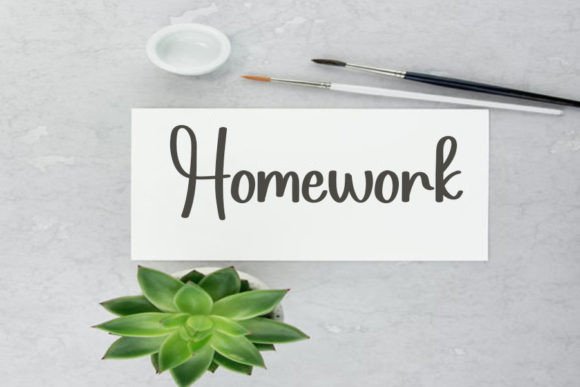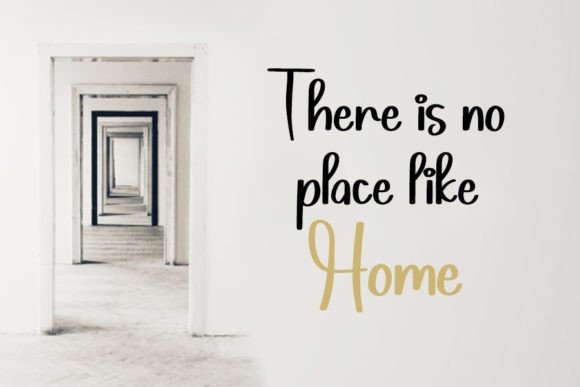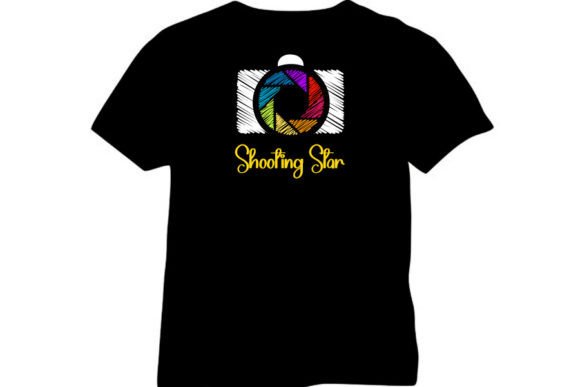
Photography Font
About Photography Font
“Photography” is a cute and friendly handwritten font that adds a playful and slightly quirky charm to your design projects. This font is a perfect fit for a wide range of applications, including logos, branding, posters, and crafty DIY projects.
The defining characteristics of “Photography” are its cuteness and friendliness. Its handwritten style imparts an approachable and authentic feel to your designs, making it an ideal choice for projects that require a personal touch with a touch of whimsy.
Imagine using “Photography” to create memorable and approachable logos and branding materials that resonate with your target audience. Visualize incorporating this font into posters that convey a fun and lighthearted atmosphere. “Photography” can also be a valuable asset for crafting eye-catching DIY projects, whether it’s for greeting cards, scrapbooking, or other creative endeavors.
In conclusion, “Photography” is more than just a font; it’s a design resource that infuses cuteness and friendliness into your creative work. Its handwritten style makes it versatile for various design applications where an approachable and personal tone is desired. Embrace “Photography” as a font that enhances your designs and brings a delightful and slightly quirky quality to your projects.